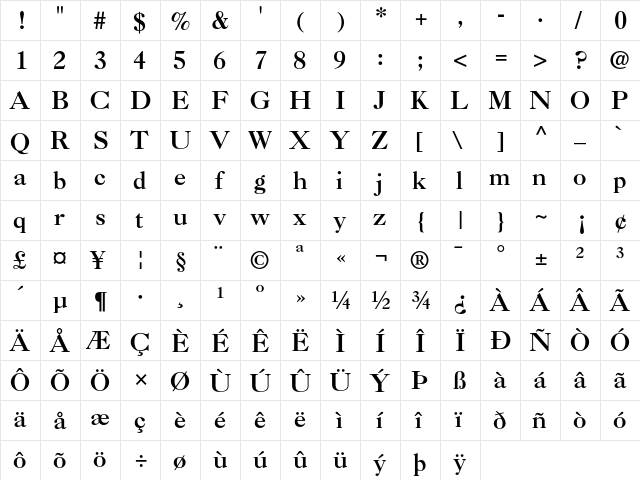
CaslonThree Regular
CaslonThree takes a measured approach to typography — its balanced proportions and neutral character make it a reliable workhorse for both digital and print work.